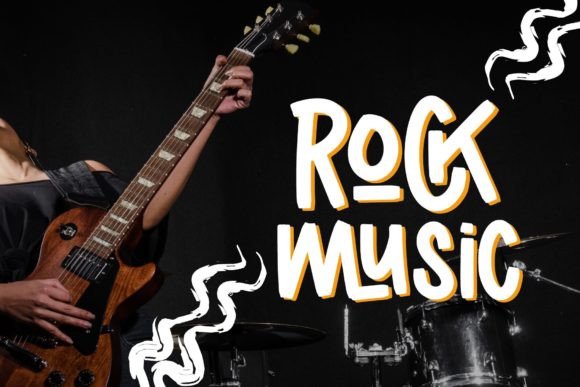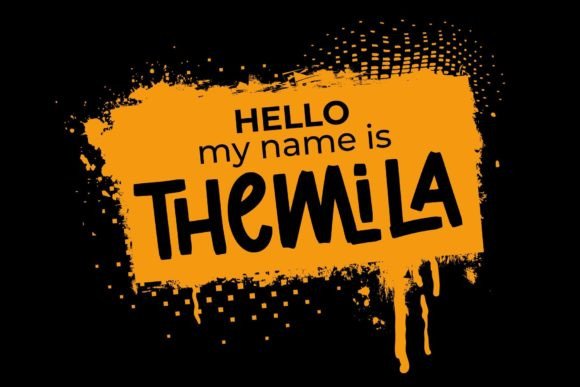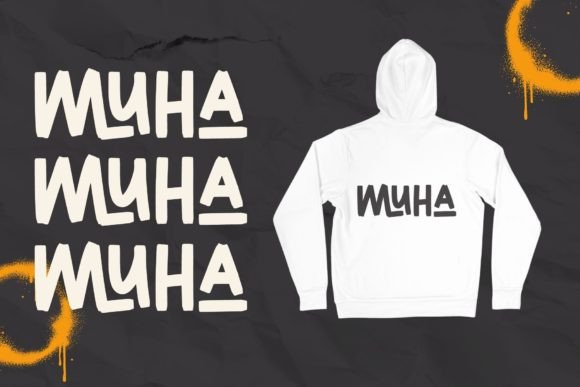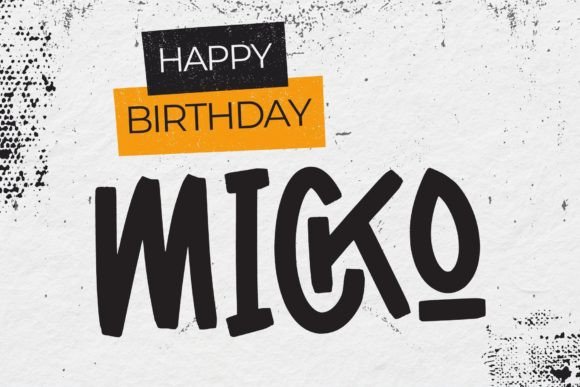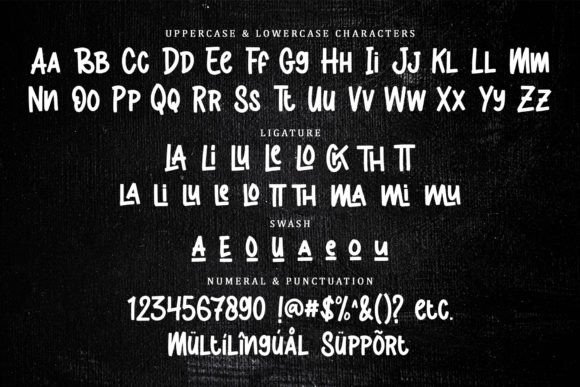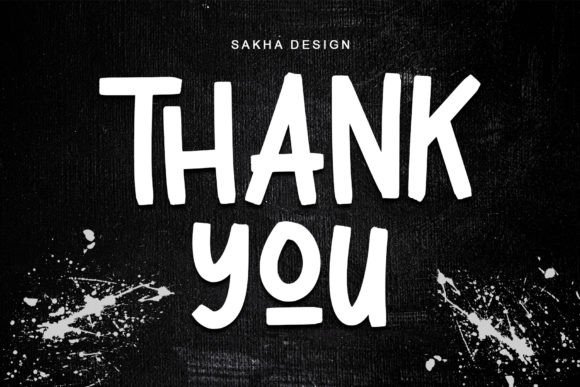
Unlock the Power of Black Math Font: Elevate Your Designs with Elegant Handwritten Text
Are you tired of using the same old fonts in your designs? Do you want to add a touch of elegance and sophistication to your projects? Look no further than our unique Black Math Font collection. Our handwritten fonts are meticulously designed to provide a artistic touch to your work, setting you apart from the crowd.
The Art of Handwritten Fonts
Handwritten fonts have a way of adding a personal touch to any design. They evoke emotions, convey personality, and create a sense of connection with the viewer. Our Black Math Font collection is inspired by the beauty of handwritten text, with each character carefully crafted to perfection.
Our fonts are designed to be versatile, making them perfect for a wide range of projects, from creative crafts to digital designs. Whether you’re a designer, crafter, or DIY enthusiast, our Black Math Font collection has got you covered.
What Sets Our Fonts Apart
So, what makes our Black Math Font collection so special? Here are just a few reasons why our fonts stand out from the rest:
- Unique Design: Each character in our fonts is meticulously designed to provide a unique and artistic touch to your projects.
- Elegant and Captivating: Our fonts are designed to be elegant and captivating, making them perfect for adding a touch of sophistication to your designs.
- Versatile: Our fonts are versatile and can be used for a wide range of projects, from digital designs to creative crafts.
- High-Quality: Our fonts are of the highest quality, ensuring that your designs look professional and polished.
How to Use Our Fonts
- Digital Designs: Use our fonts to create stunning digital designs, from social media graphics to website headers.
- Creative Crafts: Add a personal touch to your creative crafts, from scrapbooking to card making.
- Branding and Marketing: Use our fonts to create a unique and recognizable brand identity.
Why Choose Our Fonts
So, why choose our Black Math Font collection over other fonts on the market? Here are just a few reasons why our fonts are the perfect choice for designers and crafters:
- Unique and Exclusive: Our fonts are unique and exclusive, ensuring that your designs stand out from the crowd.
| Font Name | Black Math Font |
| Author | Sakha Design |
Experience of handwritten text with our unique handwritten font collection. Each character is meticulously designed, artistic touch to your projects. Enhance the aesthetics of your work with our elegant and captivating handwritten fonts.